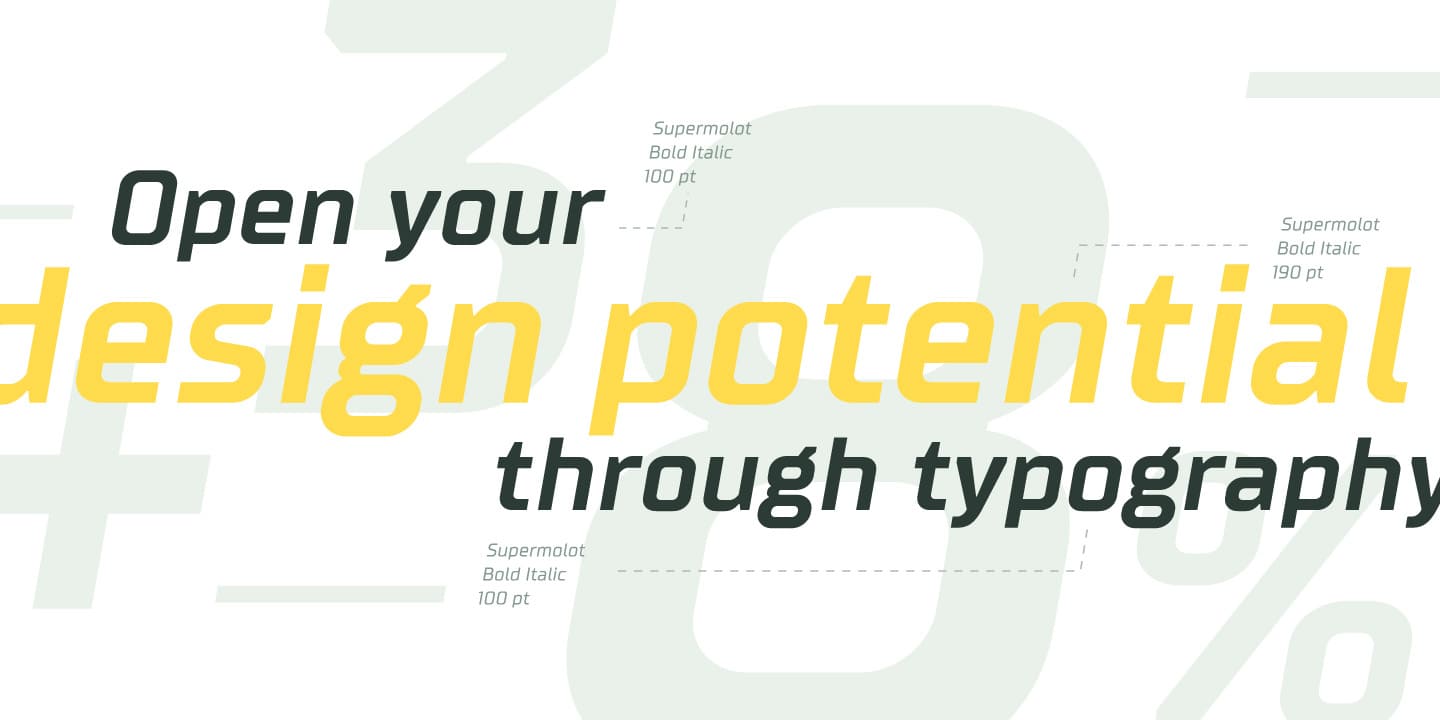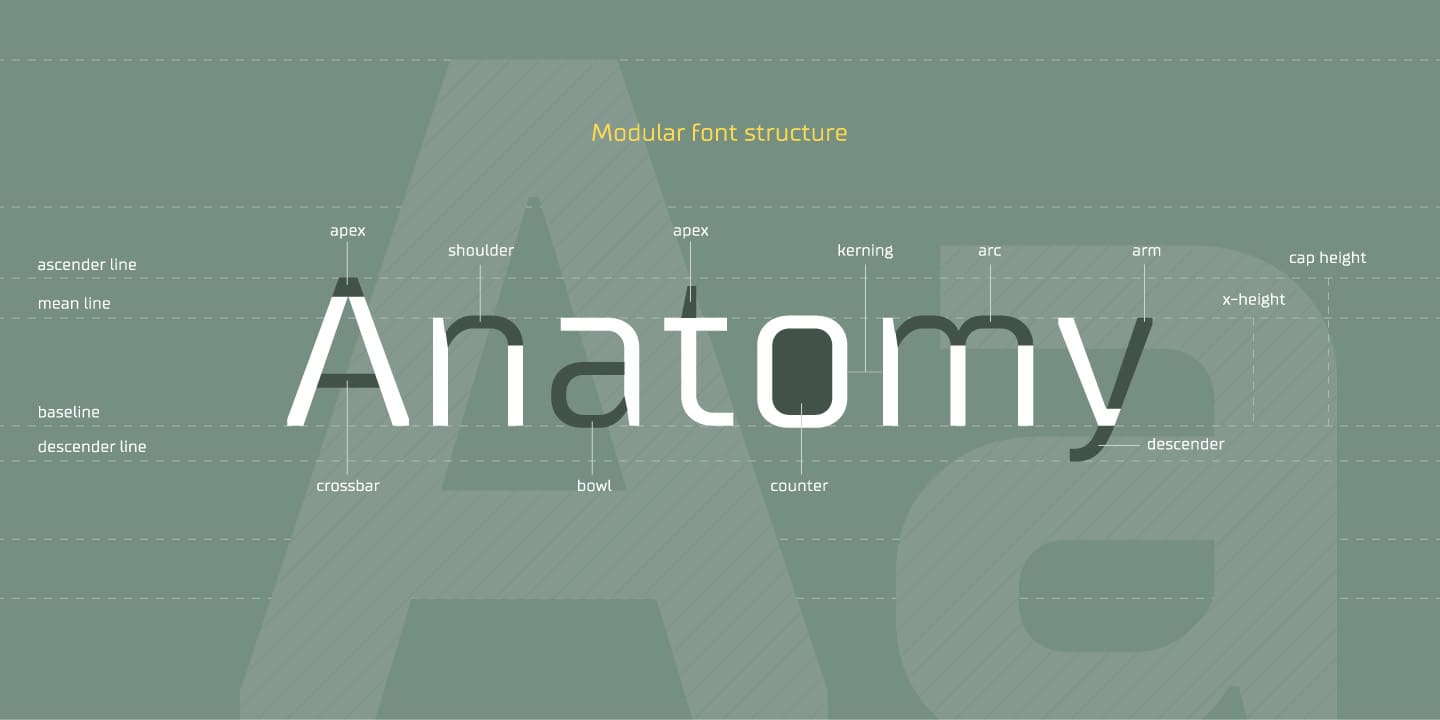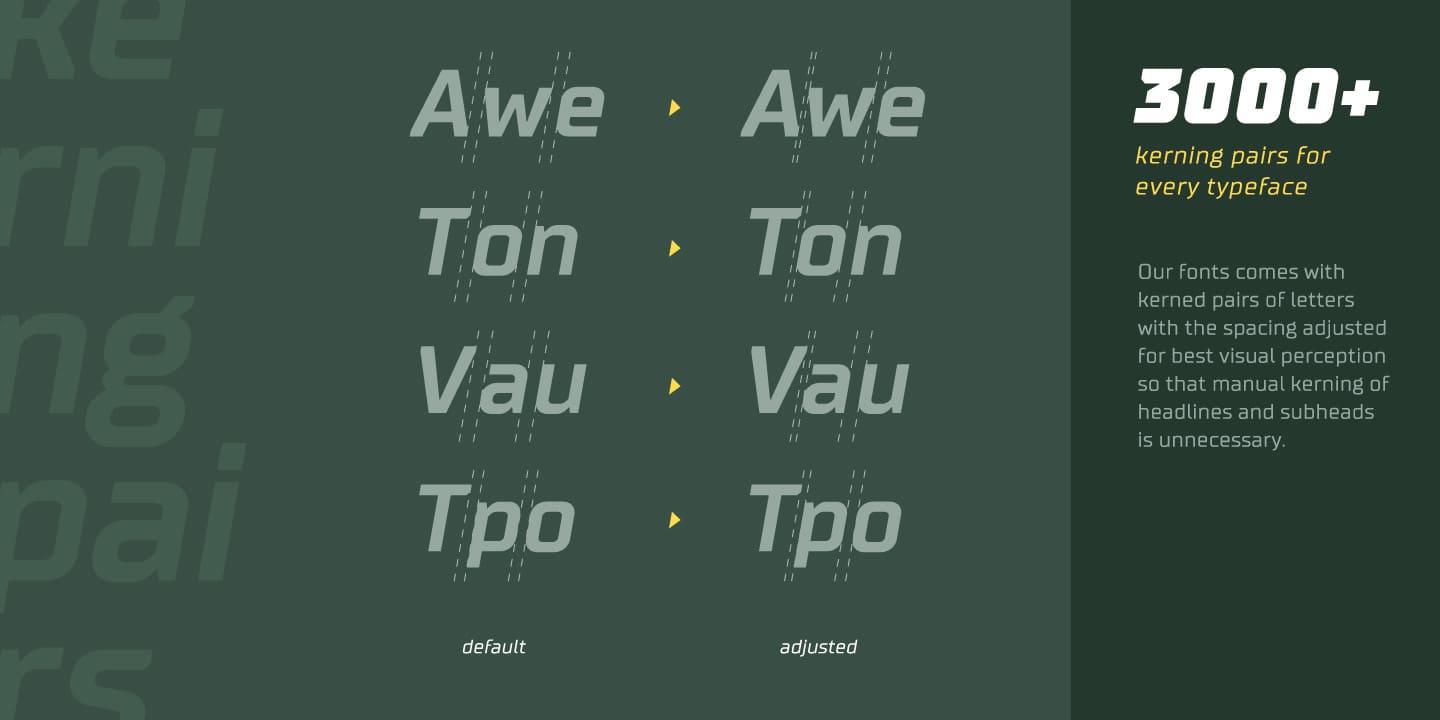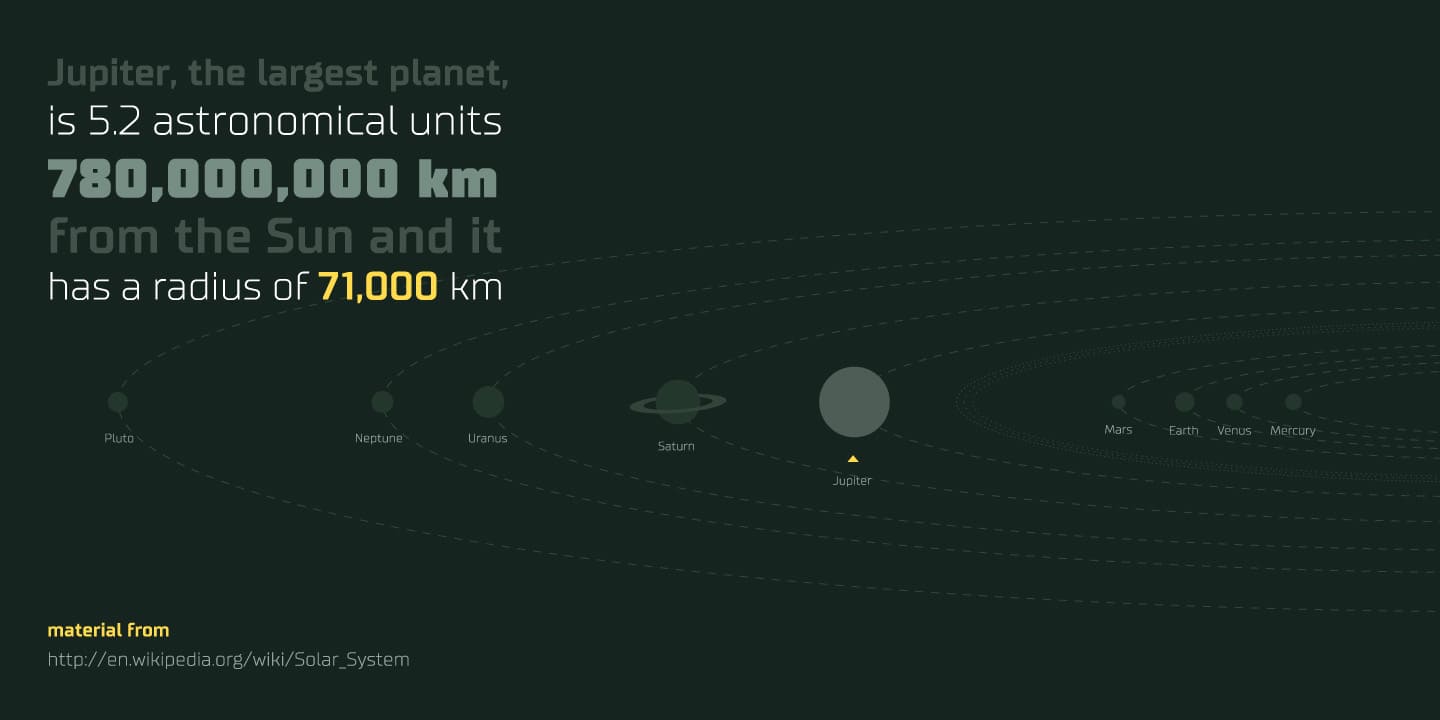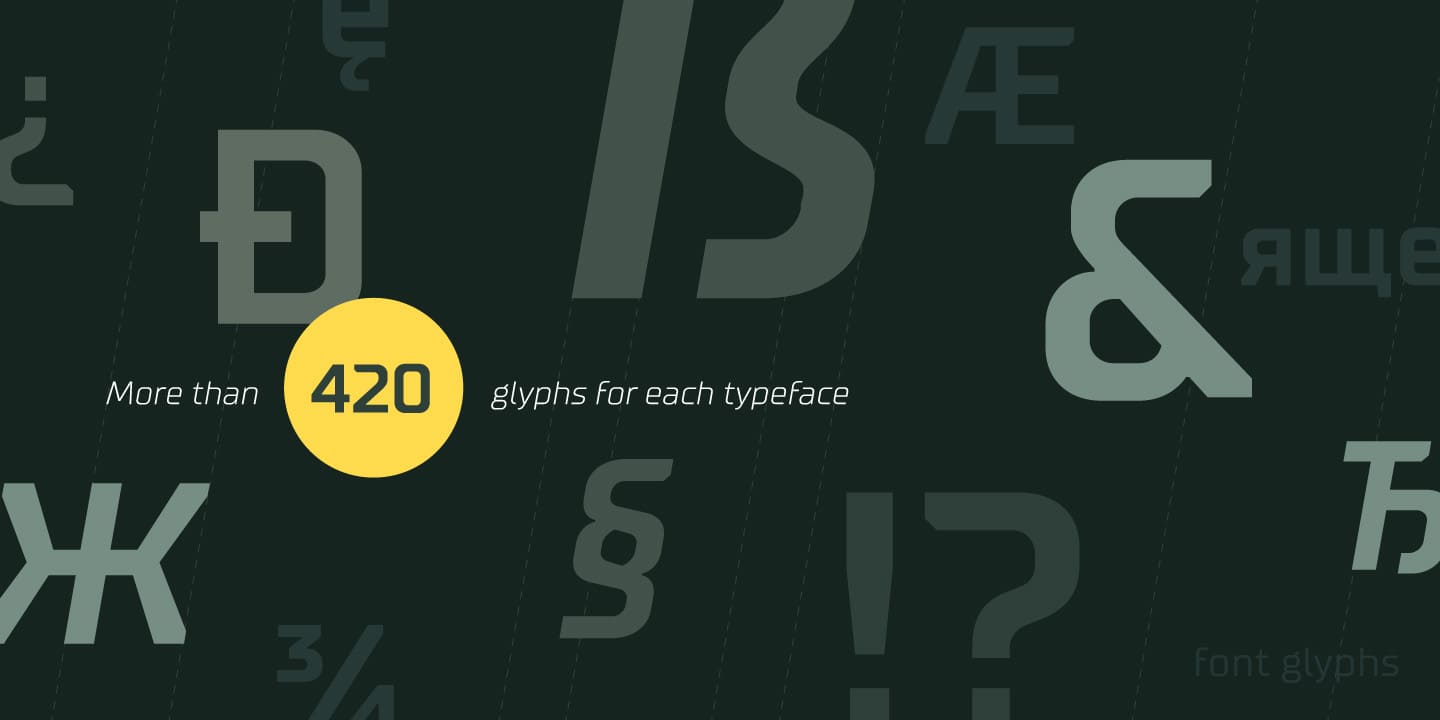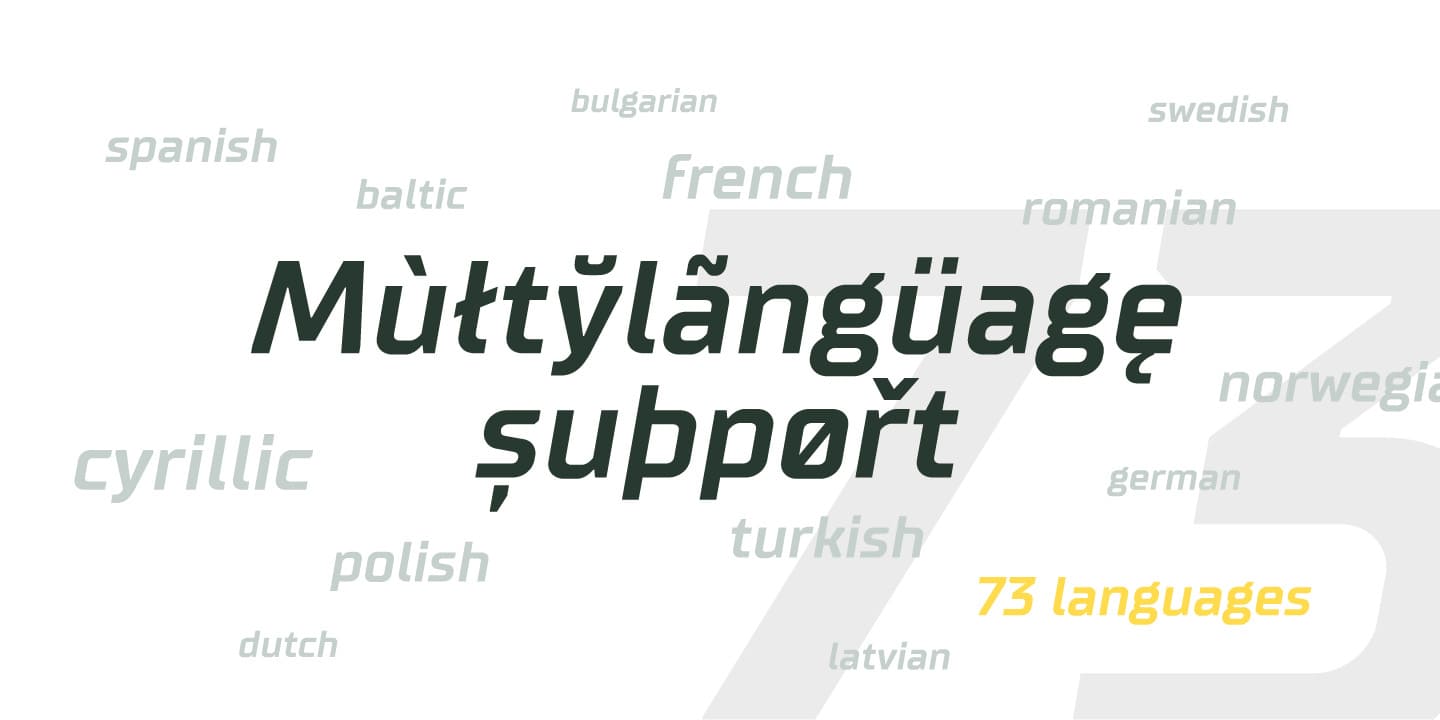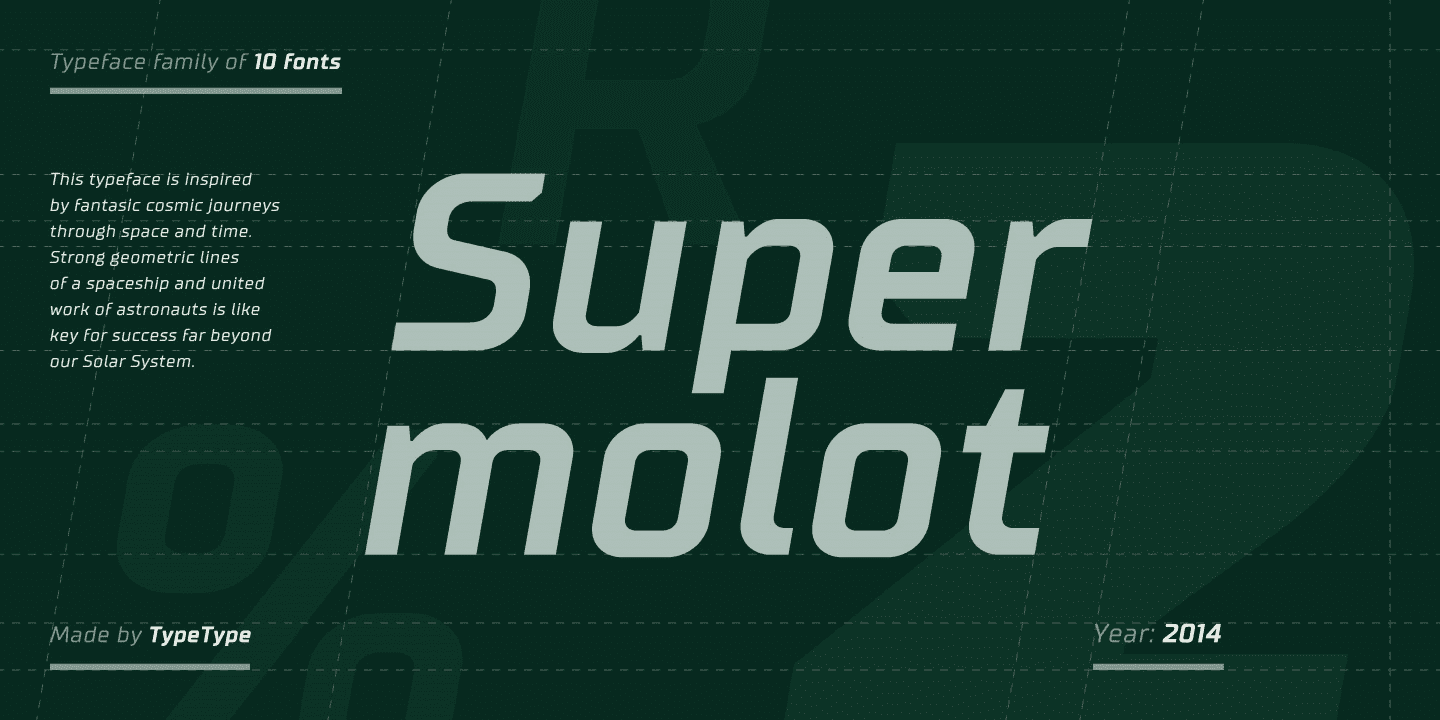
TT Supermolot is next step of development of our old font Supermolot. We altered all in it from the beginning. Now it is a modern interpretation of an old font.
Infographics — big chapter in graphic design. Supermolot - this fontfamily for infographics and any structured information. You can use these fonts almost everywhere. The modern open grotesque forms and classic fontfamily formula: Thin, Light, Regular, Bold, Black and Italics. Supermolot is the assistant to work for any projects.
Scope:
drawings, interfaces, infographics, statistics, graphic design, logotypes, structures, TV design, packaging, design of interiors and exhibitions, presentations and events, restaurants and cafes, printed materials, books, chemistry, physics, mathematics, educational literature, textbooks